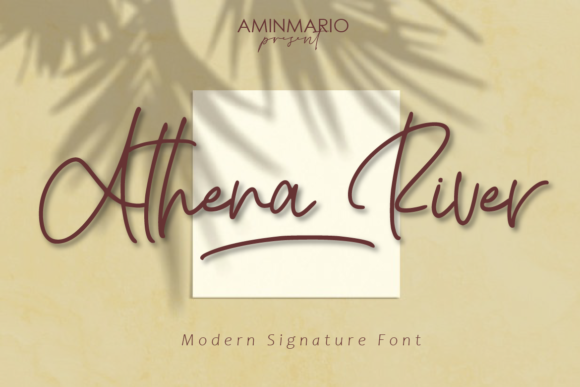
The Magic of Athena River Font: Elevate Your Designs with Elegance
Have you ever been in the middle of a design project, and suddenly, you feel like something’s missing? You’re not quite sure what it is, but you know it has to do with the font. I recall a recent experience where I was working on a luxury branding project for a high-end jewelry client. The design looked stunning, but the font just didn’t feel right. That’s when I discovered the breathtaking Athena River Font. It was love at first sight! 💫
A Personal Review: What I Love About Athena River Font
Let me tell you, Athena River Font has quickly become one of my go-to typefaces for luxury designs. Here are a few things that I absolutely adore about it:
- ✨ Romantic and sweet calligraphy style: The characters in Athena River Font dance along the baseline, giving it a beautiful, organic feel that’s perfect for luxury branding, wedding designs, and more.
- 💫 Luxury spark: Athena River Font adds a touch of elegance and sophistication to any design project, making it ideal for high-end clients or special occasions.
While Athena River Font is truly stunning, there are a few minor things to keep in mind:
- ⚠️ Legibility at small sizes: As with many script fonts, Athena River can get a bit tricky to read at very small sizes. Make sure to test it out at different sizes to ensure it’s legible for your specific project.
- 🤔 Pairing with other fonts: While Athena River Font is gorgeous on its own, it can be a bit challenging to pair with other fonts. Experiment with different combinations to find the perfect match for your design.
The Story Behind Athena River Font
While I couldn’t find a detailed backstory on Athena River Font, it’s clear that the designer aimed to create a typeface that embodies luxury, romance, and elegance. The result is a font that’s perfect for designers, crafters, and creative hobbyists looking to add a touch of sophistication to their projects.
| Font Name | Athena River Font |
| Author | aminmario |
| Is Athena River Font suitable for body text? | While Athena River Font is stunning, it’s primarily designed for display or headline text due to its script nature. For body text, you might want to choose a more legible font. |